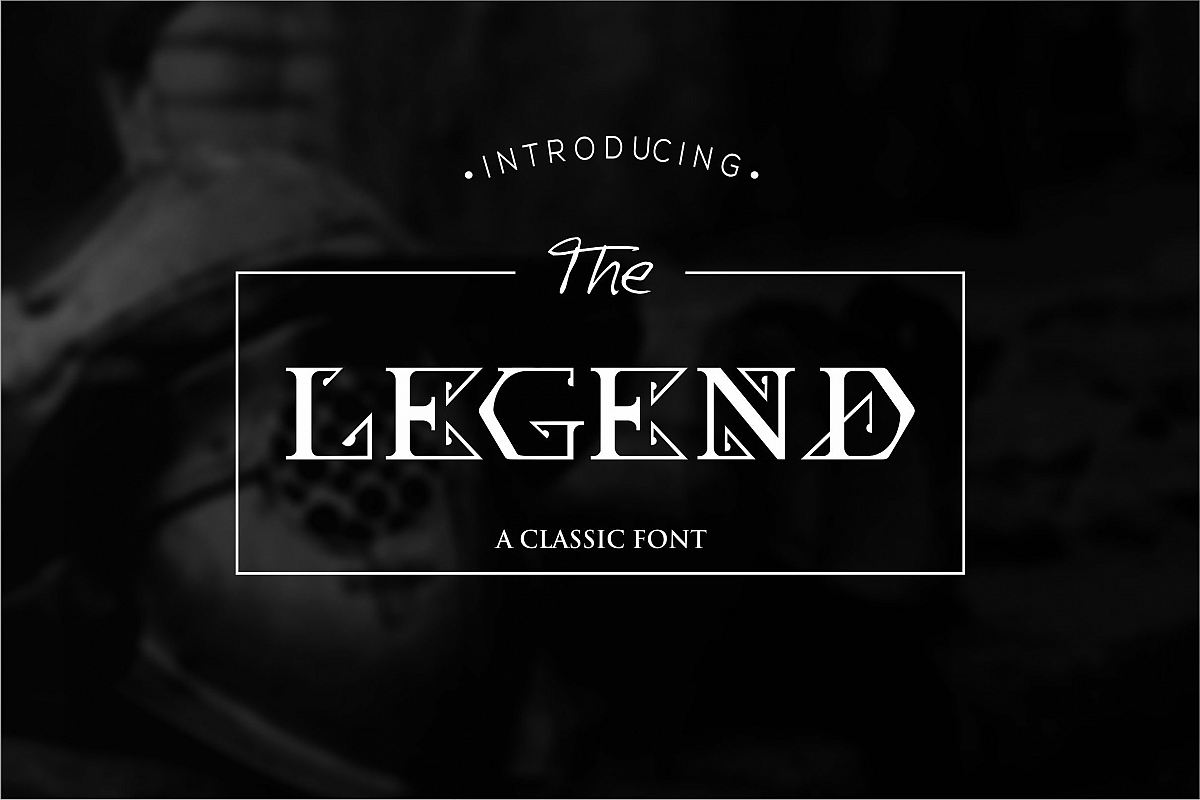
The Legend Font
Retro/Vintage/Classic style custom font with regular and bold version. TTF, formats For any help regarding this font, please feel free to contact me through my profile page and I’ll be glad to offer support.Thank you!